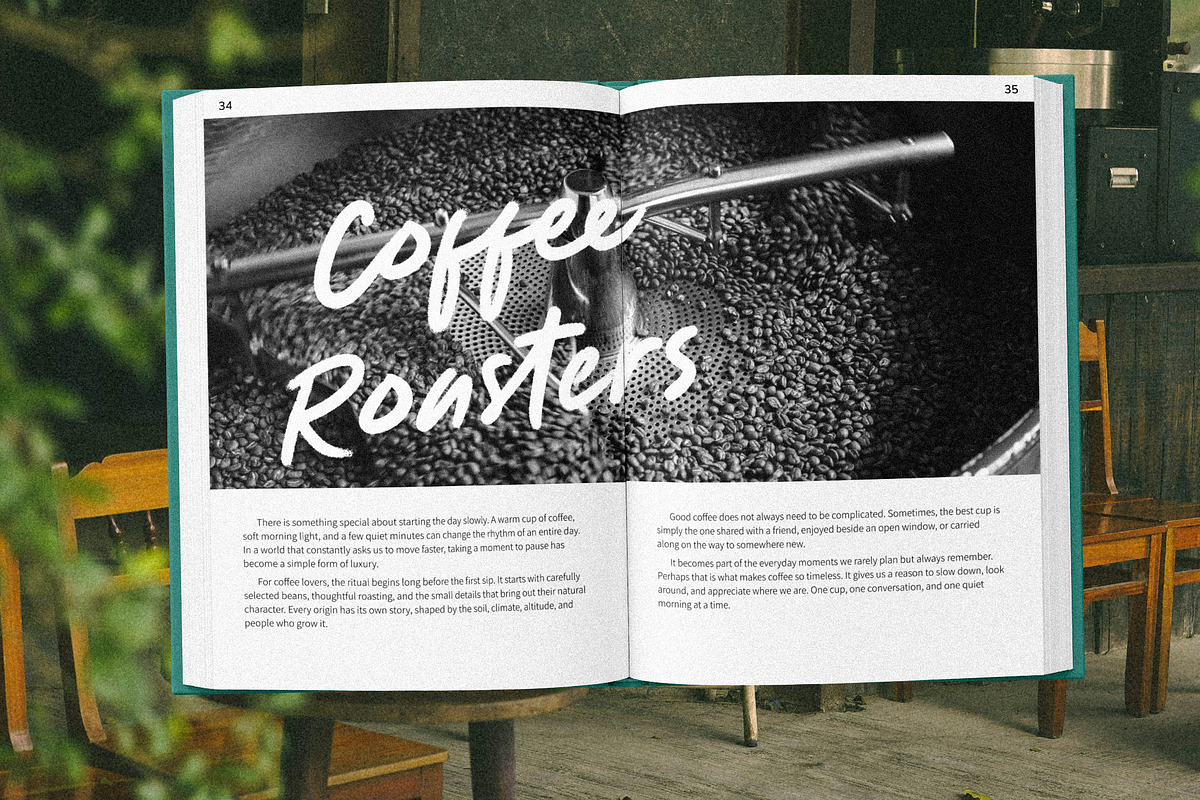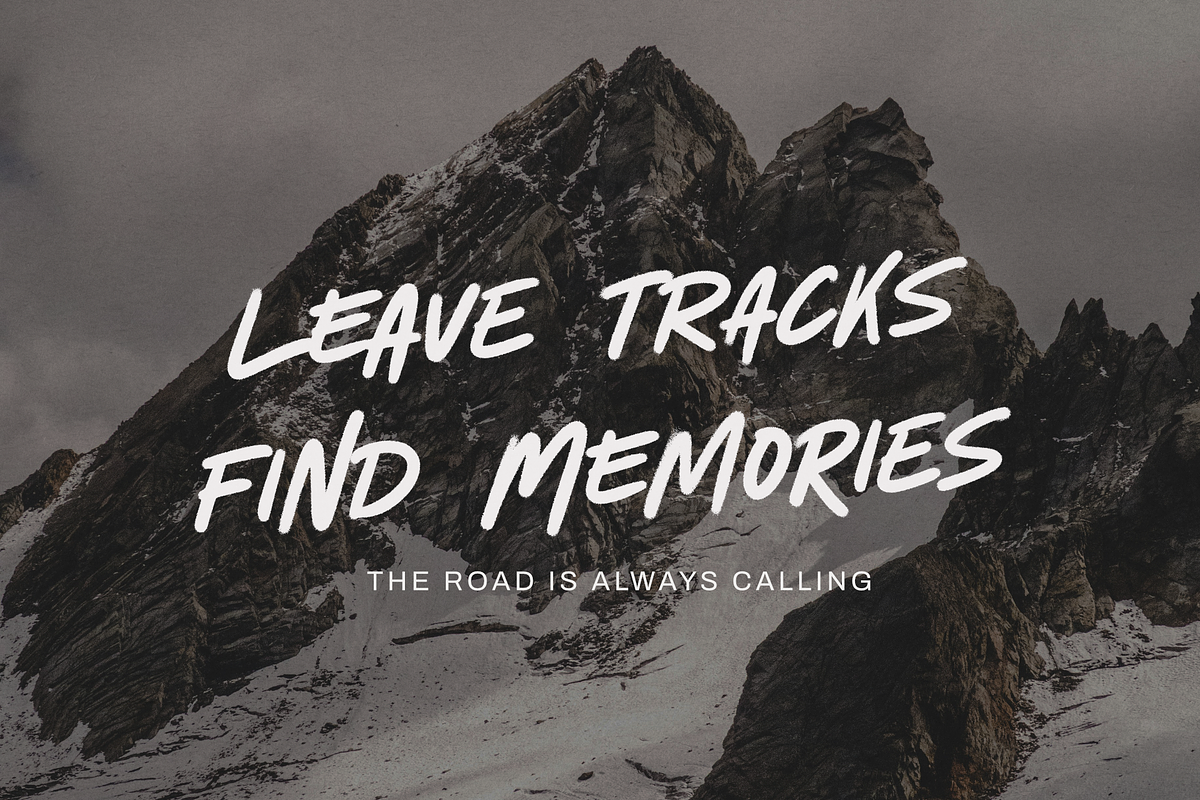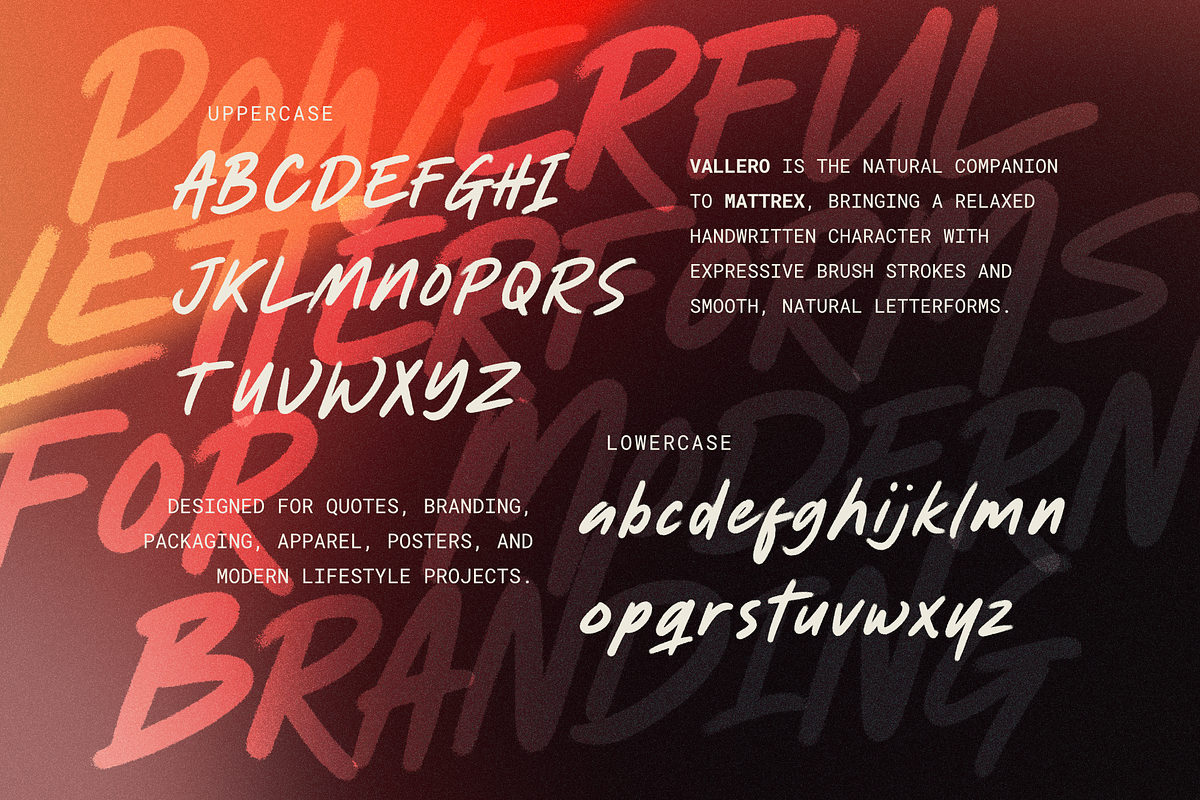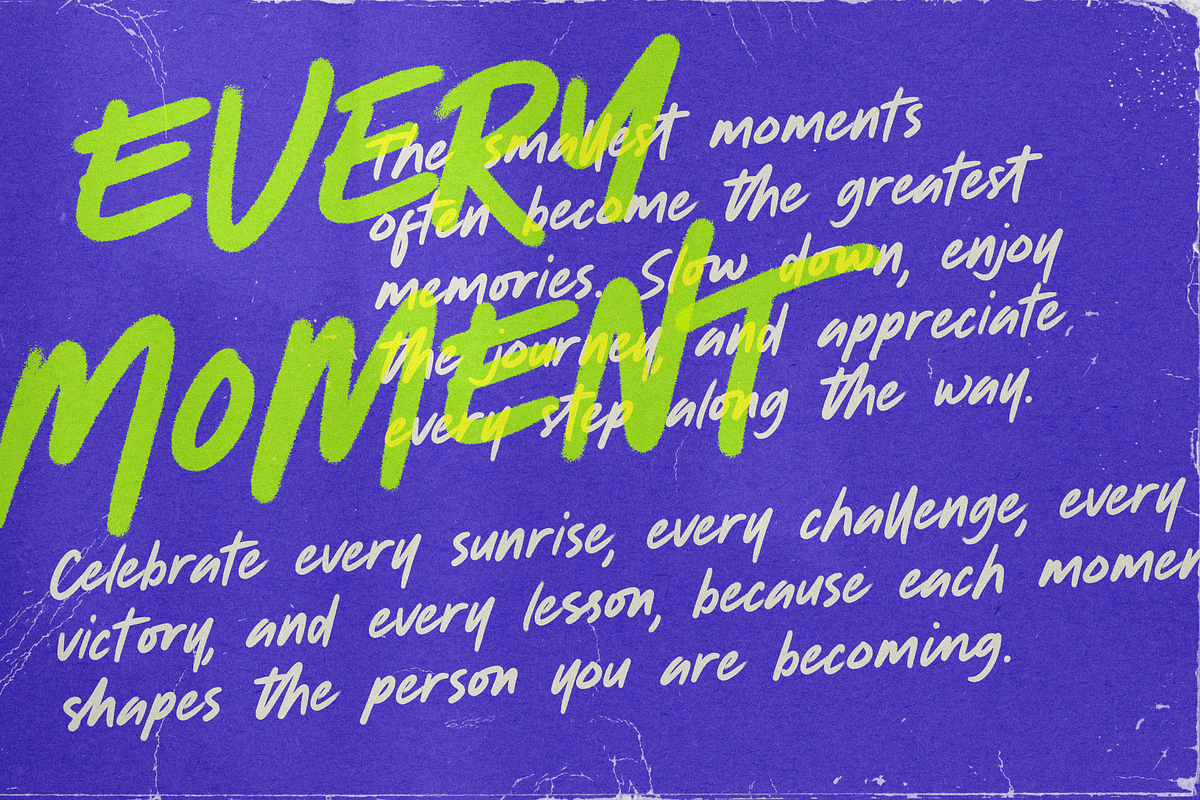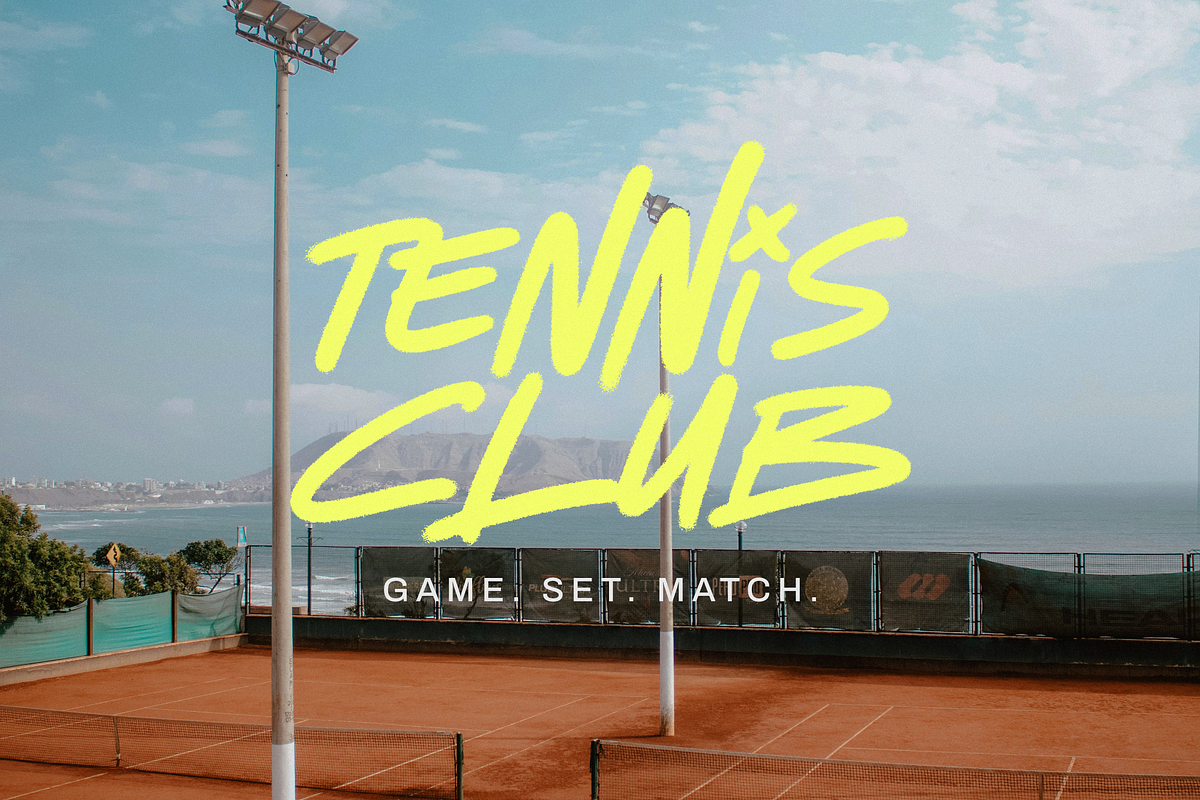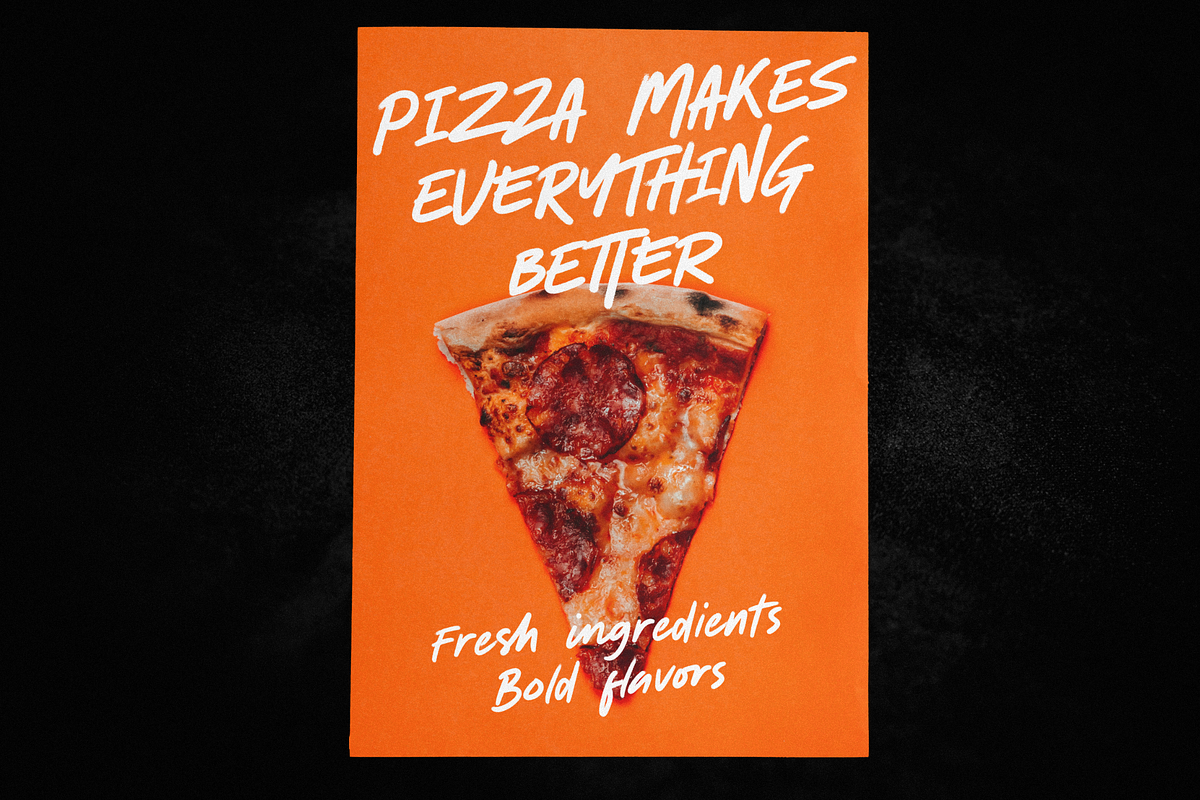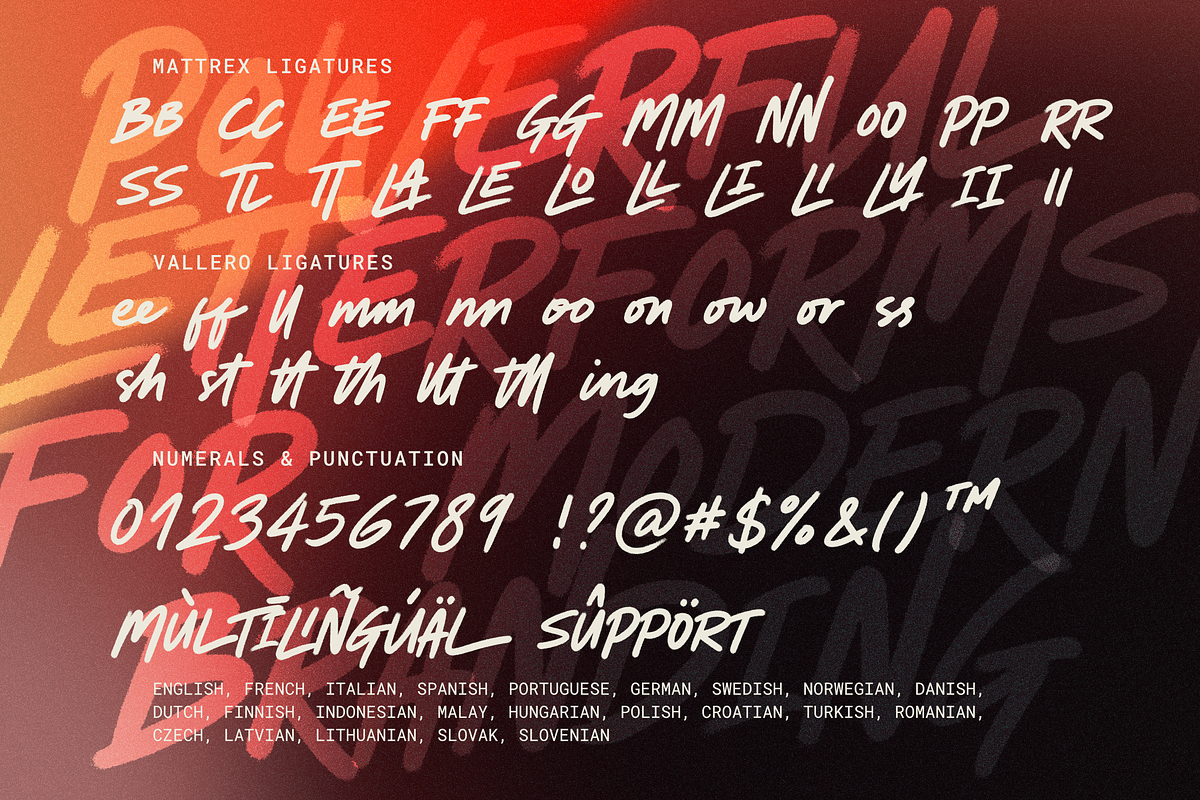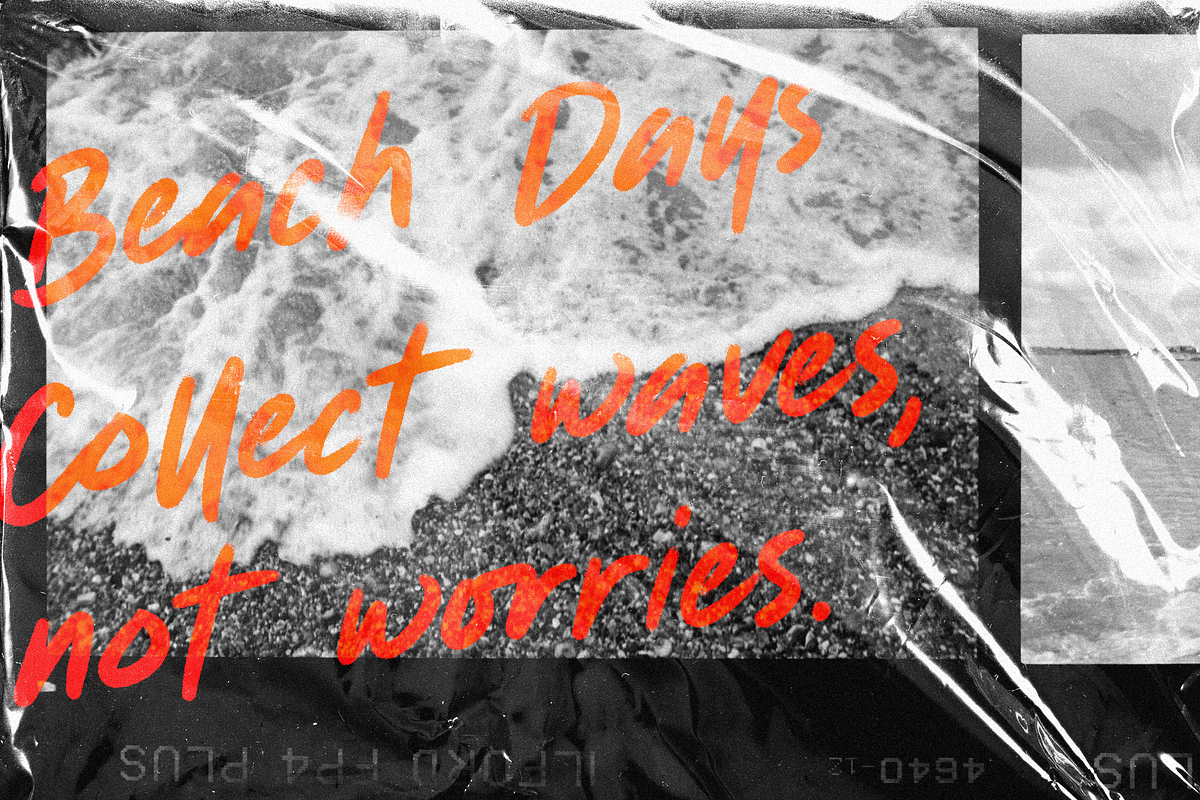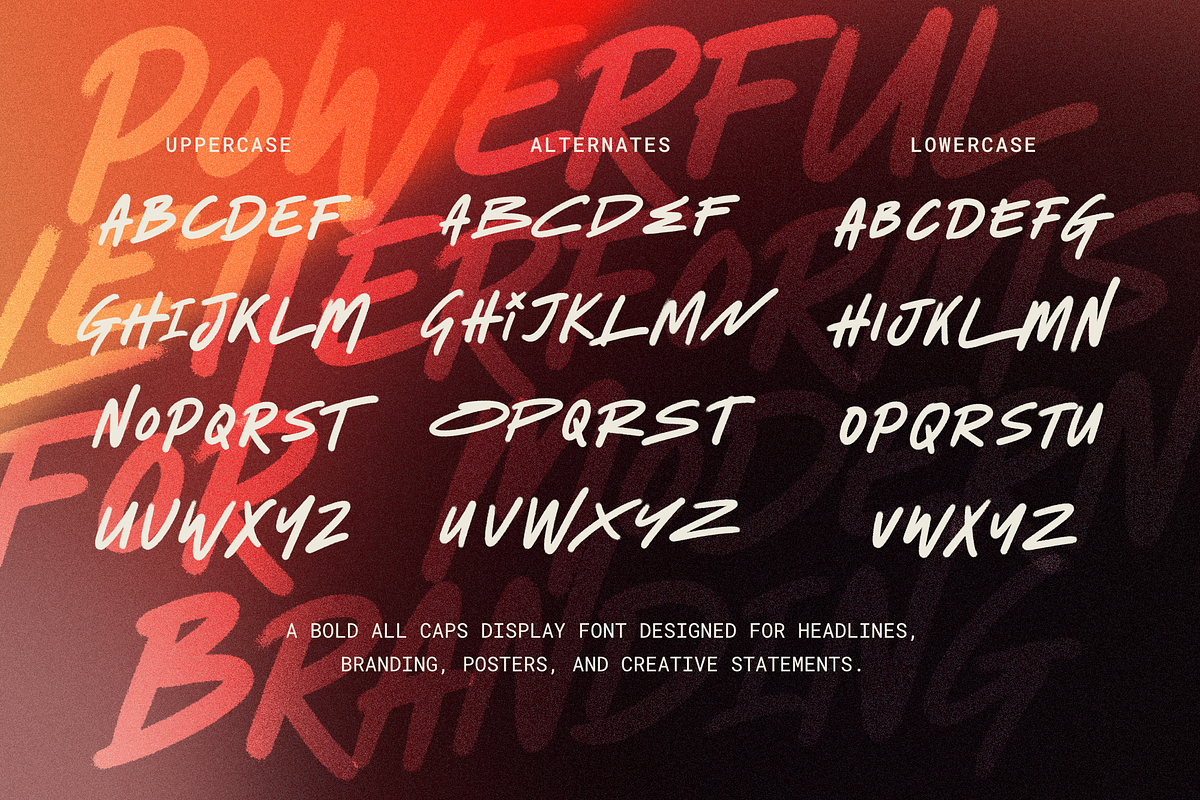
Mattrex & Vallero – Font Duo
MATTREX
Mattrex is a bold all-caps brush font with an energetic, handcrafted feel. Its expressive strokes give every word a strong visual presence while keeping a casual and approachable character. Perfect for headlines, logos, posters, apparel, packaging, social media graphics, and branding that needs to stand out.
VALLERO
Vallero is a casual brush font with a natural handwritten feel. Its relaxed letterforms and expressive strokes bring warmth and personality to your designs. Great for quotes, branding, packaging, apparel, posters, social media, and creative projects that call for a more personal and effortless touch.
MATTREX + VALLERO
Together, Mattrex and Vallero create a versatile brush duo designed to work beautifully side by side. Mattrex brings boldness and impact when you need strong headlines and attention-grabbing statements, while Vallero adds a softer, more natural touch for supporting text and expressive details. Use them together or separately to create unique designs for modern branding, lifestyle projects, apparel, posters, packaging, and more.
MADE TO MAKE AN IMPACT.